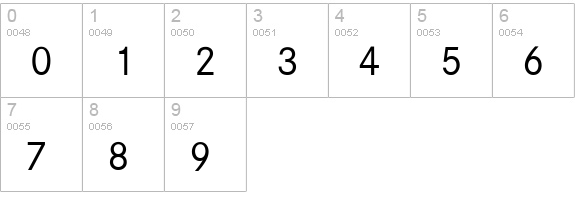
Corporate S Regular is the standard, neutral variant in the Corporate typeface family \xE2\x80\x94 well suited to general body text, paragraphs, and standard typographic work.
Corporate S Regular font is a versatile and professional typeface that is perfect for corporate and business-related projects. Its clean lines and modern design make it suitable for a wide range of applications, from branding and marketing materials to presentations and websites. This font strikes the perfect balance between elegance and readability, making it an excellent choice for conveying a sense of sophistication and professionalism. What sets Corporate S Regular font apart is that it is not only high-quality and stylish but also completely free to download. That's right – you can access this premium font at no cost from FontsMarket.com. Whether you're a designer looking to enhance your projects or a business owner in need of a polished font for your brand, Corporate S Regular font offers the perfect solution. Download it today and elevate your designs with this exceptional typeface.